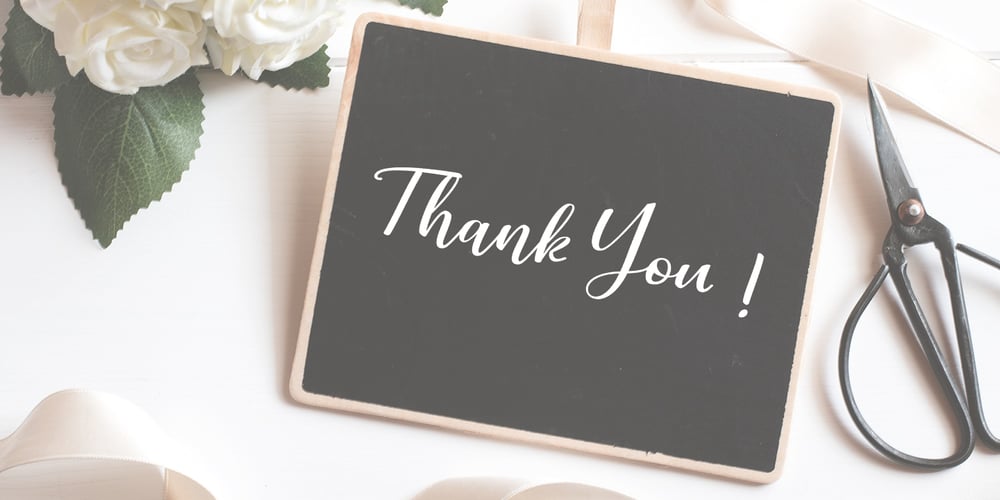
Dollygirl Script
Dollygirl Script font
Dollygirl Script Font Family was designed by Mur Zani and published by Zane Studio. Dollygirl Script contains 1 styles and family package options. Dollygirl Script is a beautiful calligraphy design, including Regular and italics. This font is enough with a sweep. Can be used for various purposes. such as logos, product packaging, wedding invitations, branding, titles, signs, labels, signatures, book covers, posters, quotes, and more. Dollygirl Script displays alternative OpenType, Binder and Various International styles for most Western languages. To activate the OpenType Stylistic alternative, you support programs that support OpenType features such as Adobe Illustrator CS, Adobe Indesign & CorelDraw X6-X7, Microsoft Word 2010 or newer. Dollygirl Script is coded with Unicode PUA, which allows access to all features without special design software. Mac users can use the Letter Book, and Windows users can use Character Maps to view and copy additional characters to paste into your favorite text editor / application. If you need help or have questions, let me know or send an email “zanestudio55@gmail.com” I’m happy to help 🙂 Thank you & Happy Design!